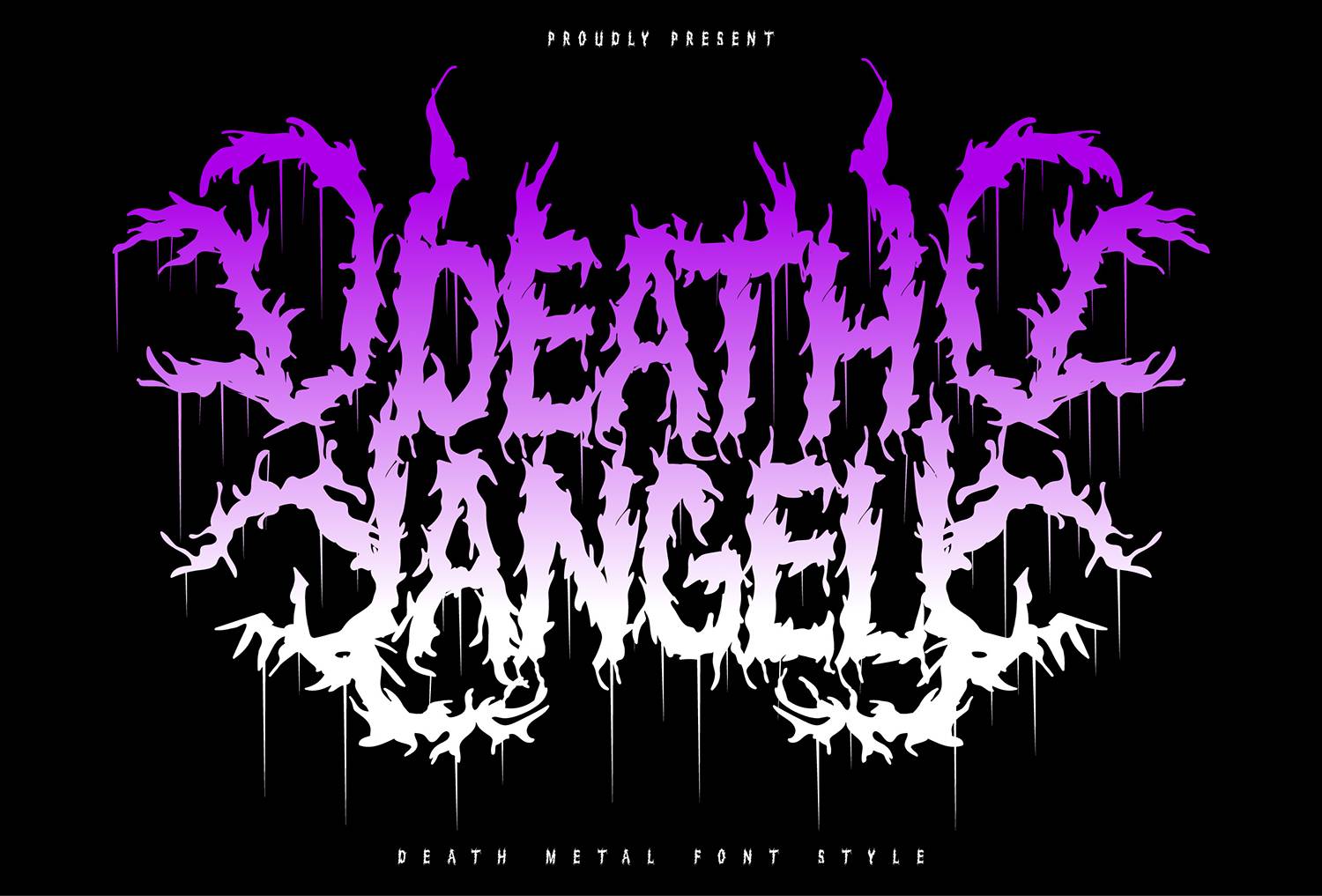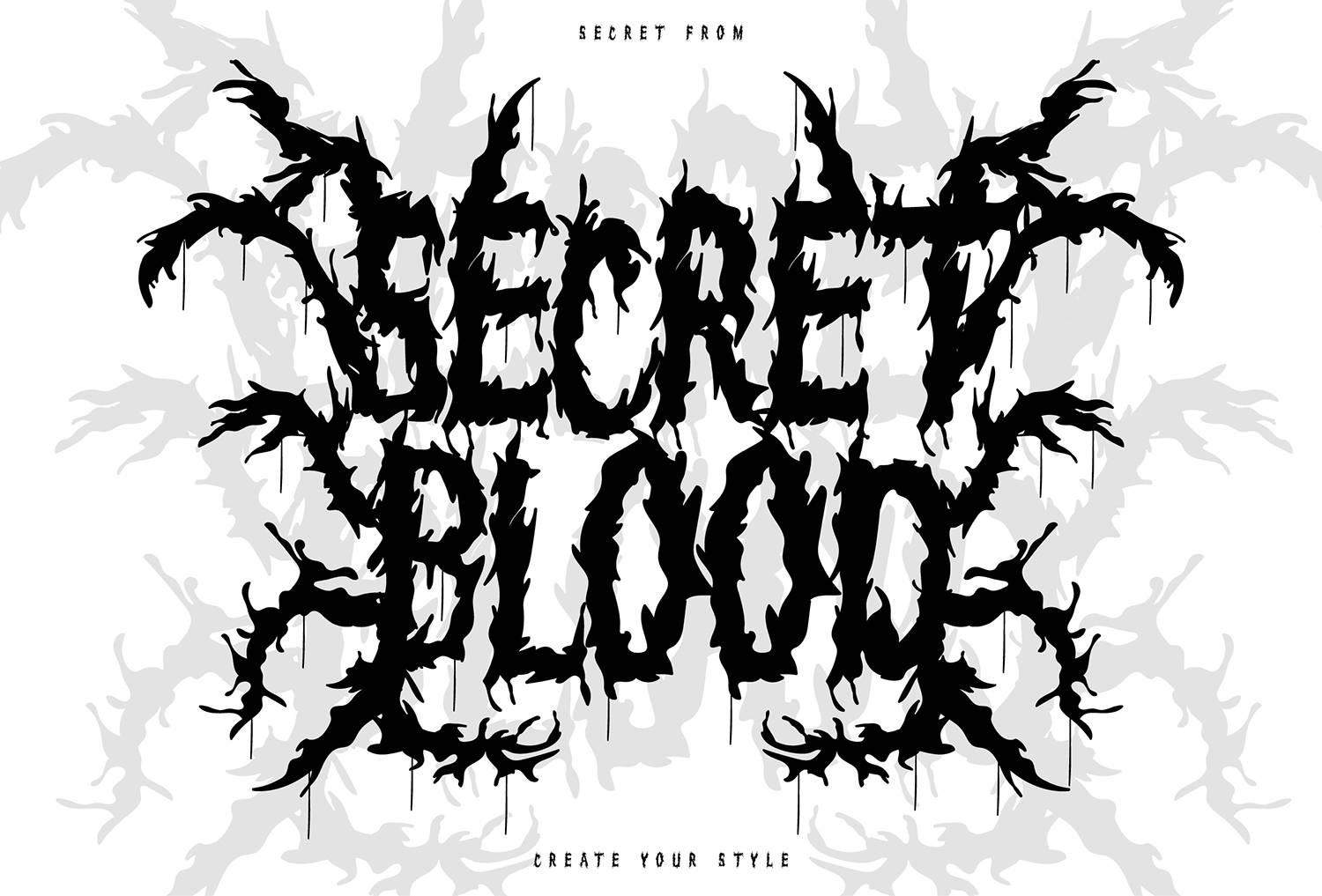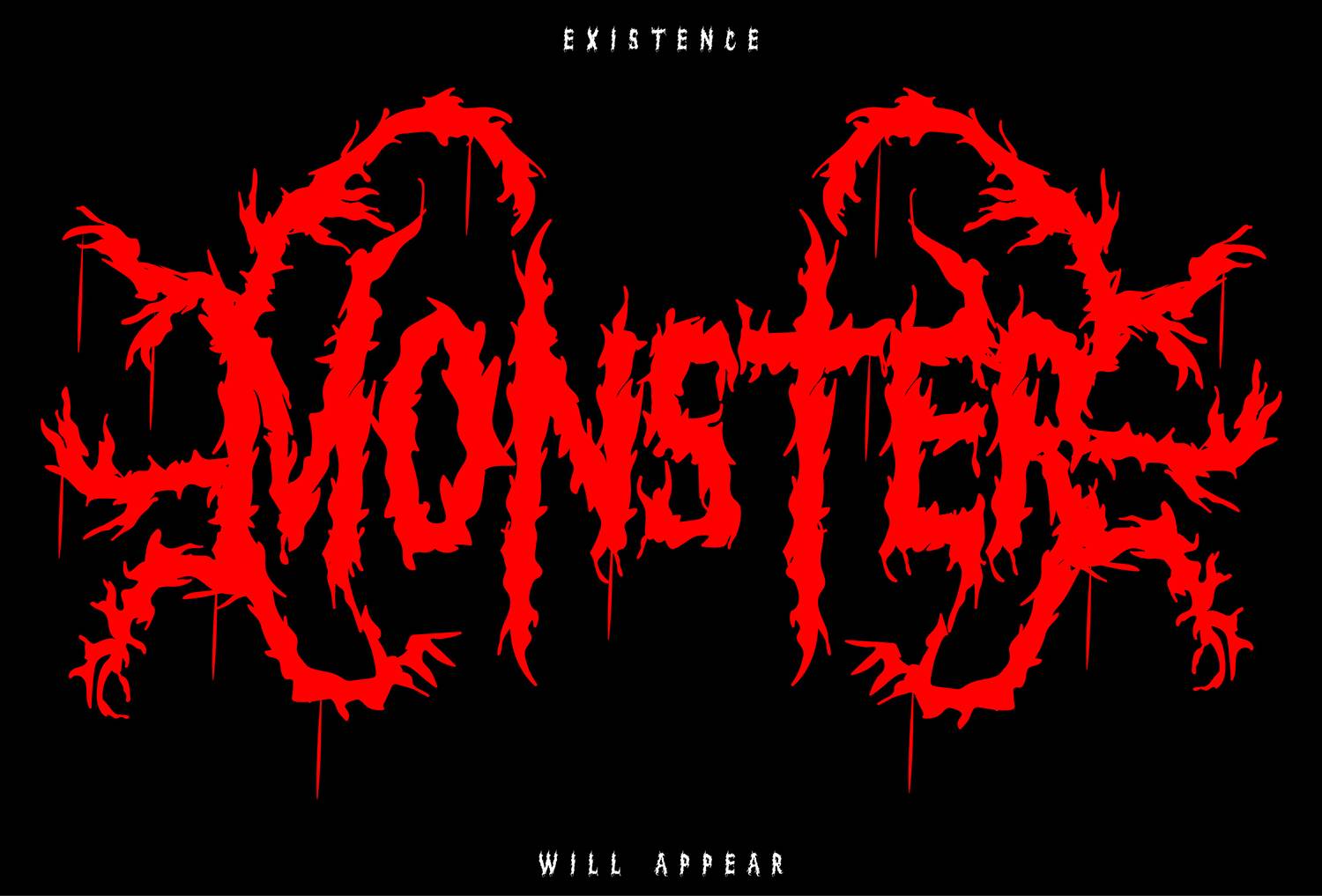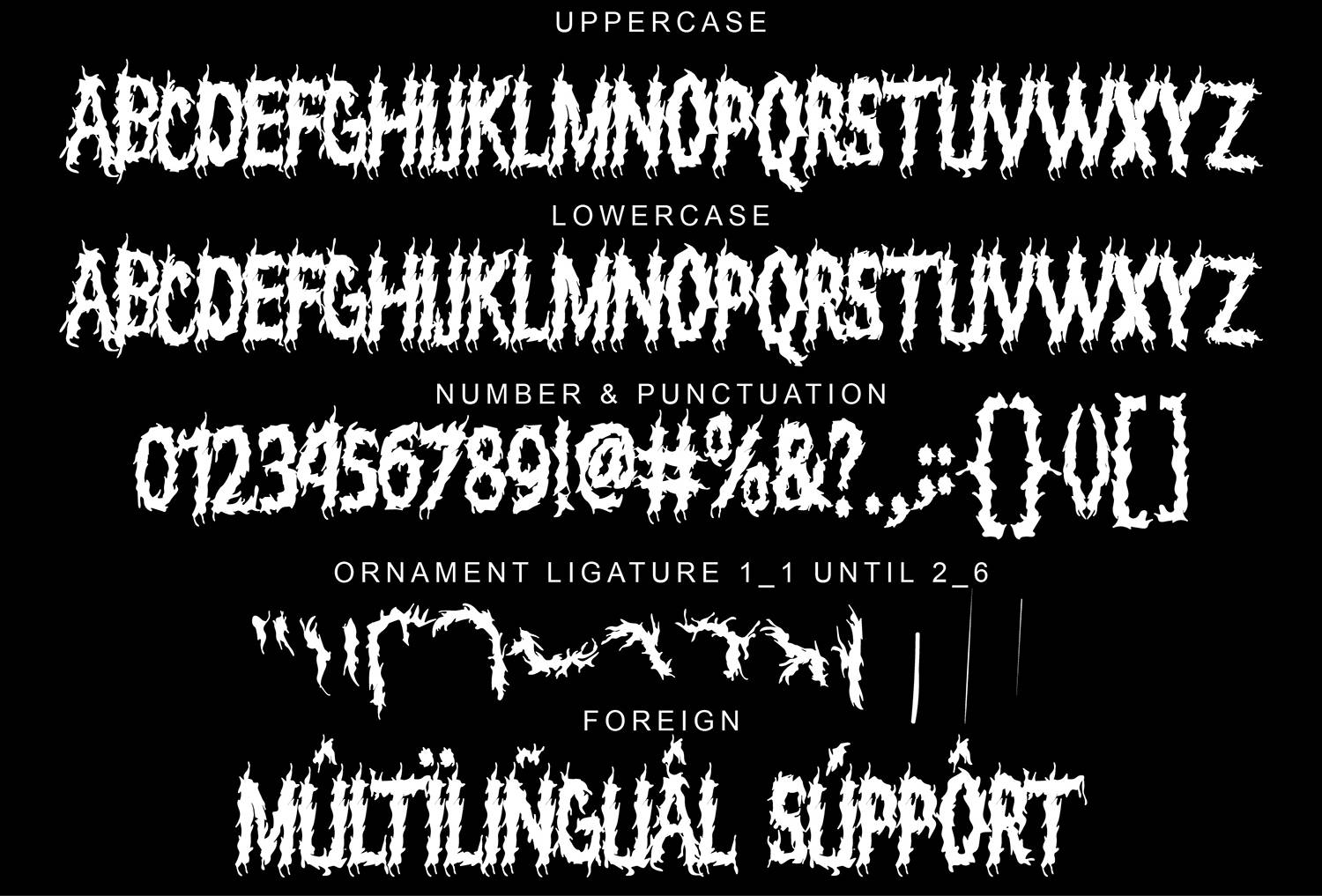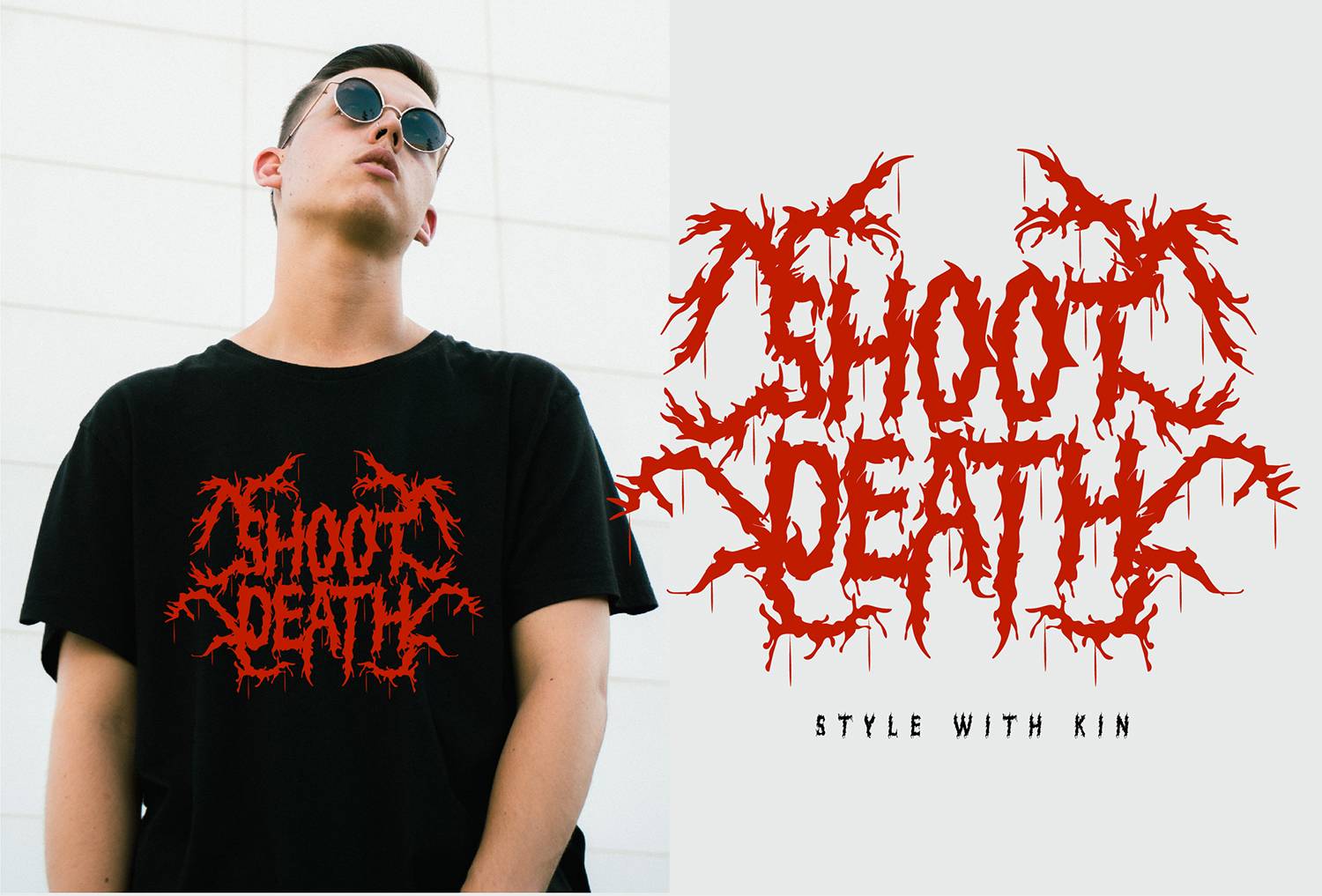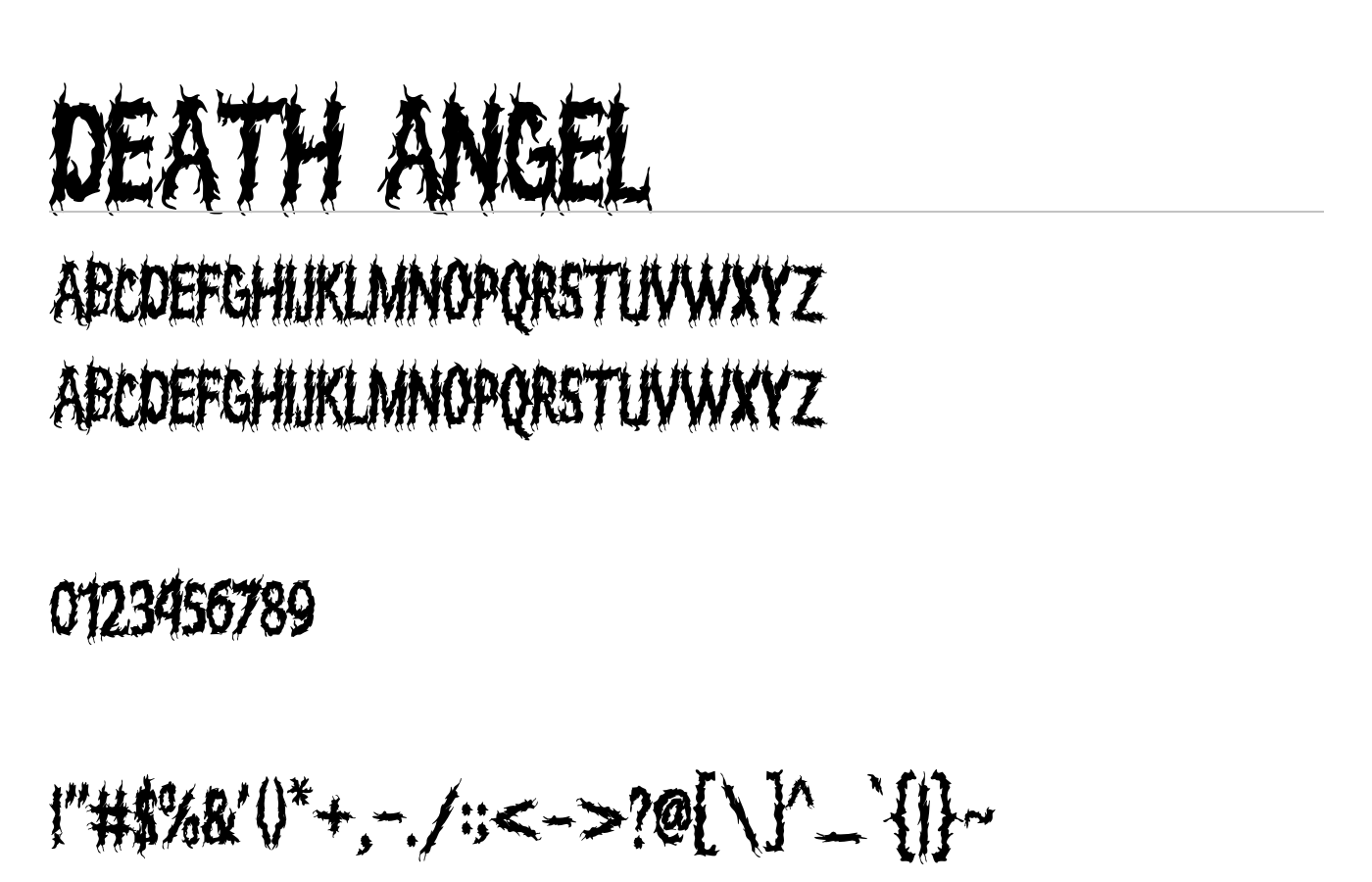
Death Angel is a bold, decorative sans serif font with sharp, jagged edges that create a dramatic, fiery effect, perfect for intense and edgy designs. Its uppercase letters are highly stylized with uneven, thorn-like strokes that evoke a dark, rebellious mood, making it ideal for horror themes, heavy metal branding, or striking headlines that demand attention. This font works best in posters, logos, and other display uses where its unique, aggressive personality can truly stand out.
Death Angel Font
About Death Angel Font
| Font family | Death Angel Font |
| Designer | Akhmad riyan danuarta |